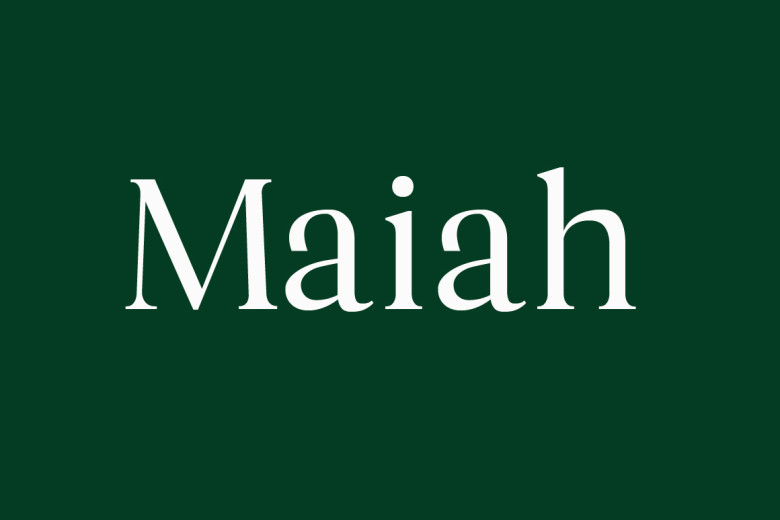
Maiah Font
Maiah is a modern, minimalist serif typeface that can bring charm to your designs. Maiah is available in 4 weights: Regular, Thin, Light, and Bold, including both uppercase and lowercase alphabet versions, numbers and basic punctuations with multilingual support. For branding design, packaging designs and presentations, including logos quotes and titles etc.
Maiah Serif Font